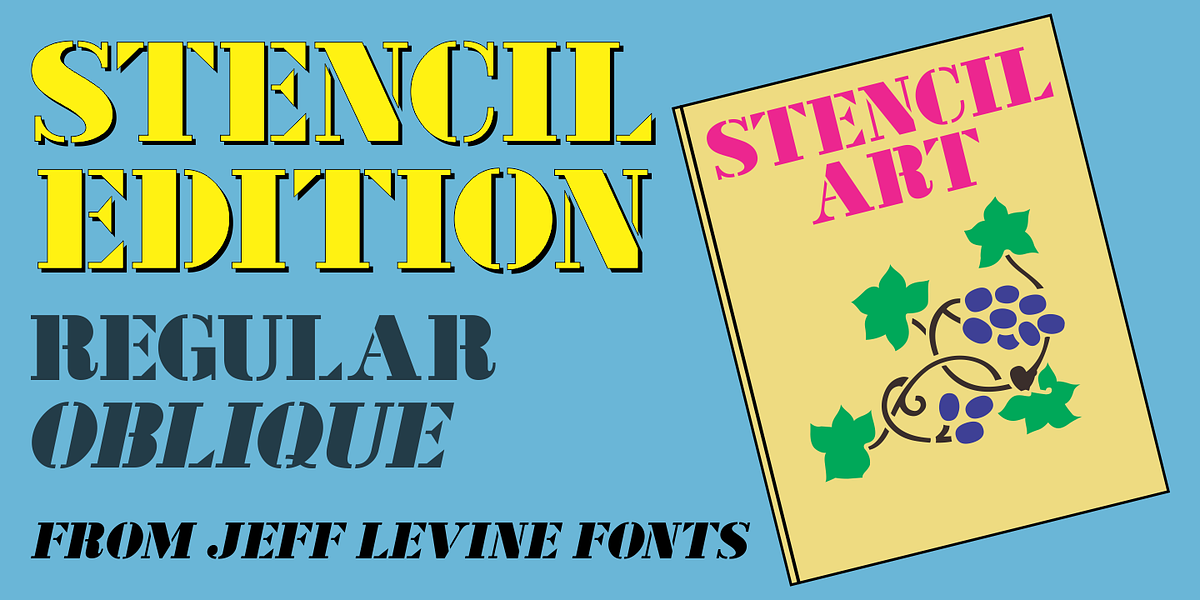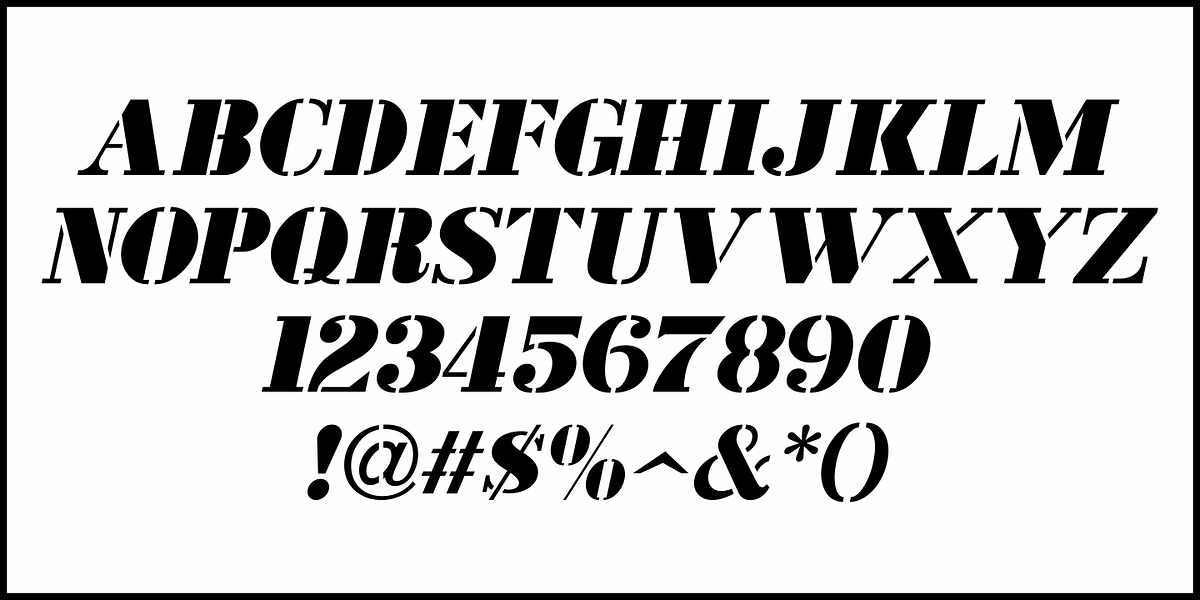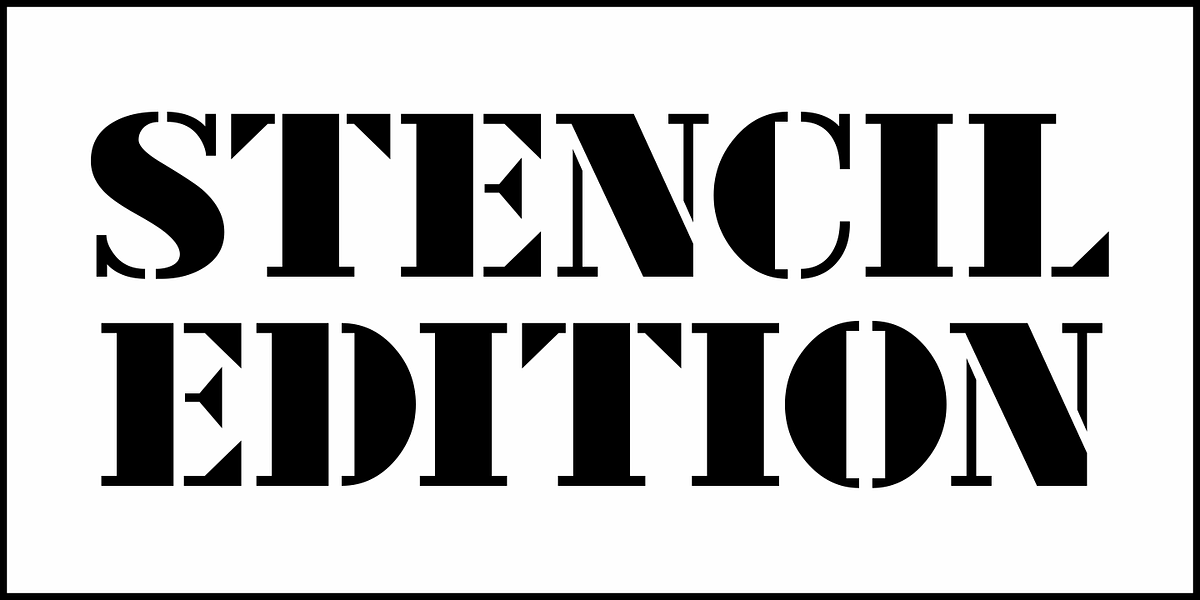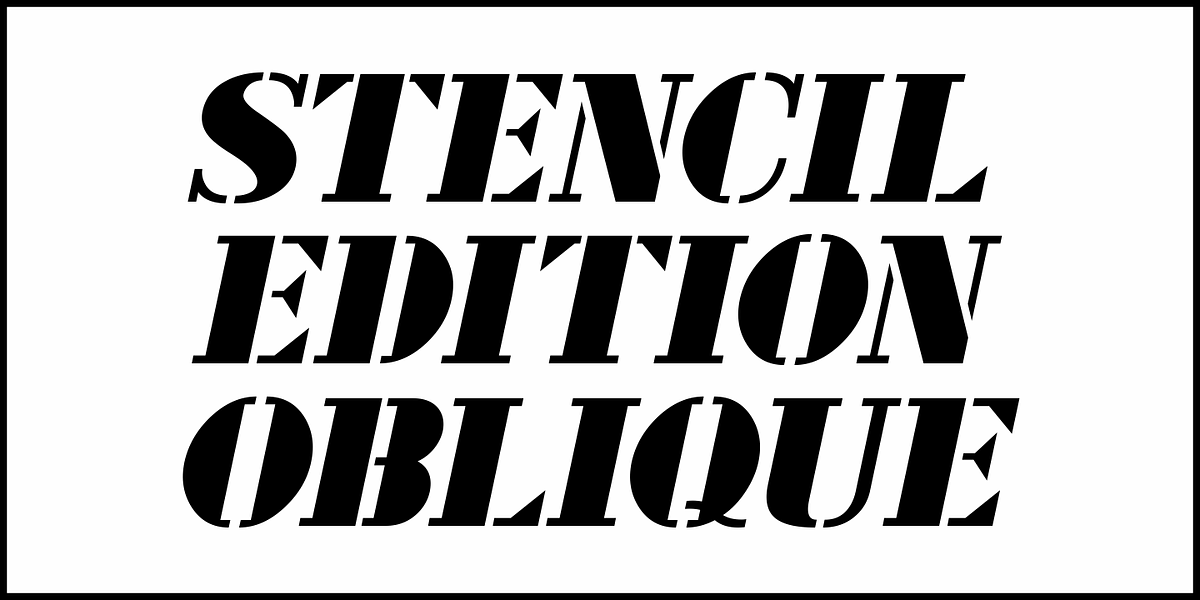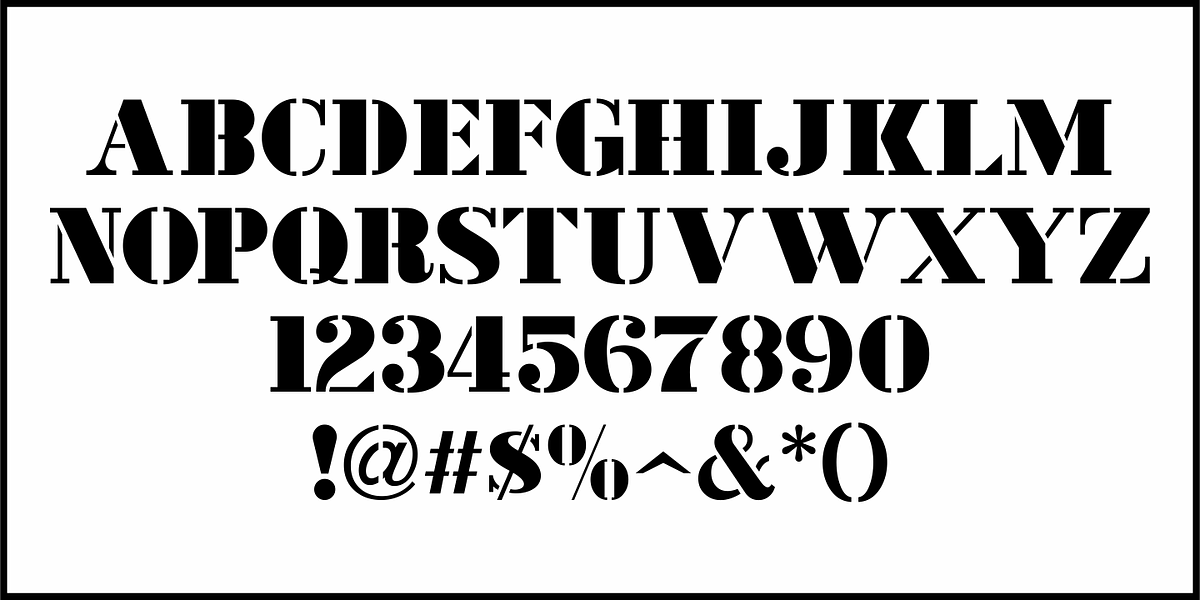
Stencil Edition JNL
The cover title for a 1950s British glamour magazine called “Beauty Parade” was the inspiration and model for Stencil Edition JNL, which is available in both regular and oblique versions.